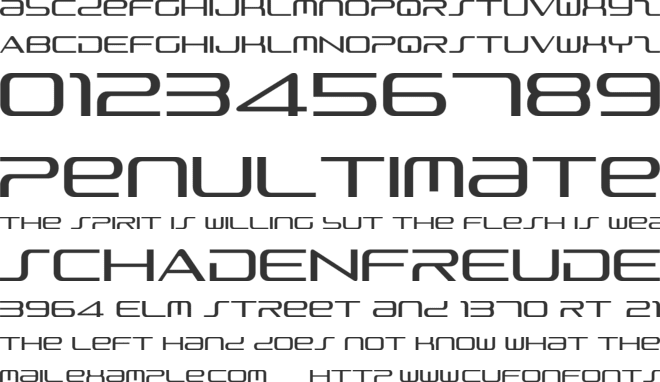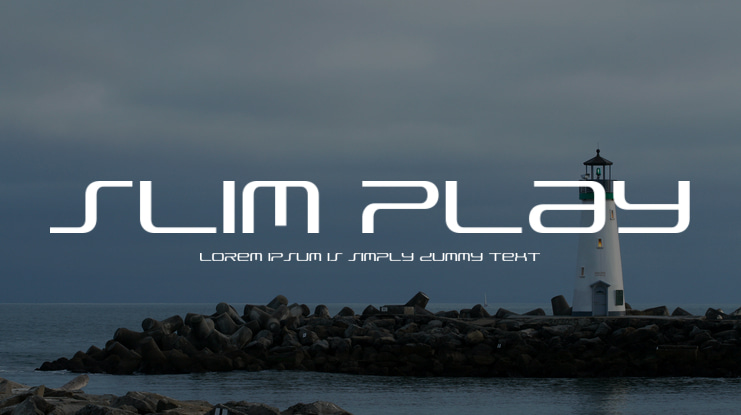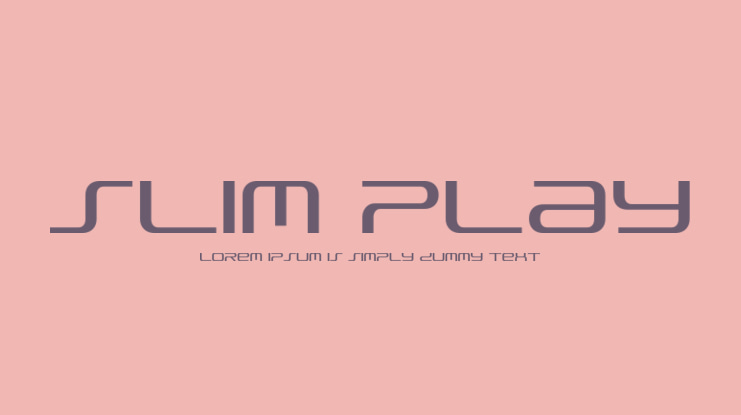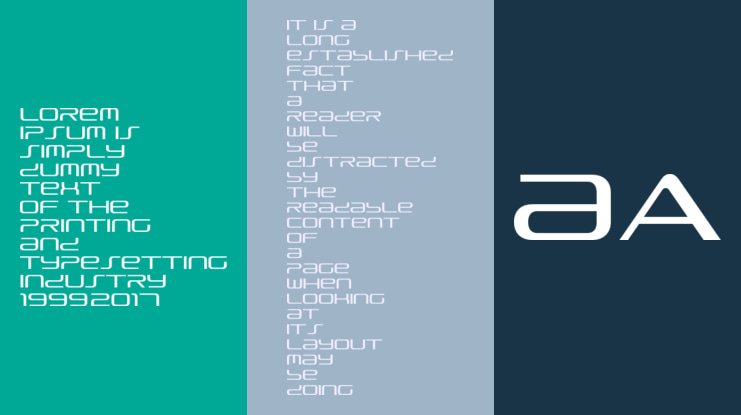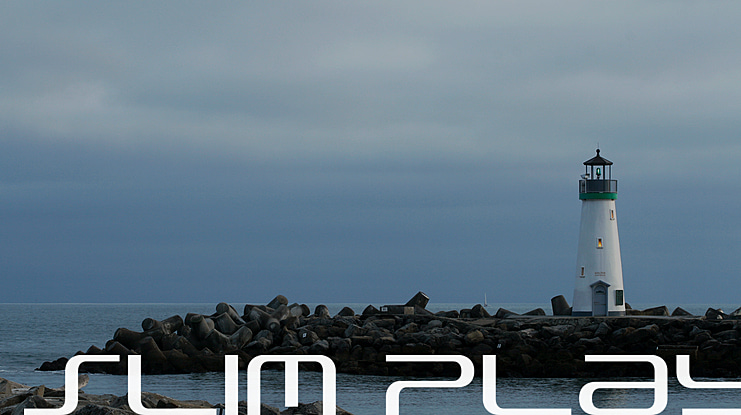
Slim Play Font
Like "Blue Players", this is a fontification of the PS3, 4, Vita, and PSN logos.
Same deal with this as with "Blue Players", taking reference with "TEST" PS3 consoles.